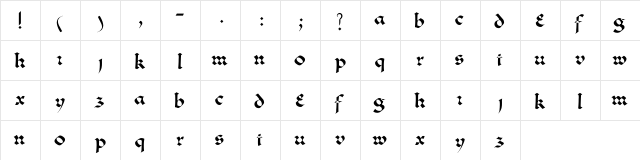
BENEDICTION Regular
Design Context for BENEDICTION Typeface
BENEDICTION is a composed and adaptable typeface that performs quietly and consistently across a wide range of design contexts.